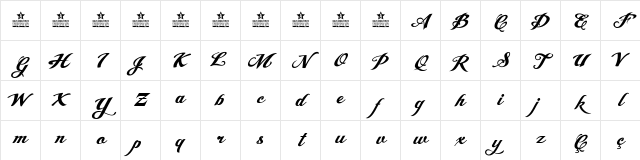
Complete Angel Tears Neue Personal Us Regular glyph index. Displaying only characters natively supported by Angel Tears Neue Personal Us Regular font.
Angel Tears Neue Personal Us is a composed and adaptable typeface that performs quietly and consistently across a wide range of design contexts.